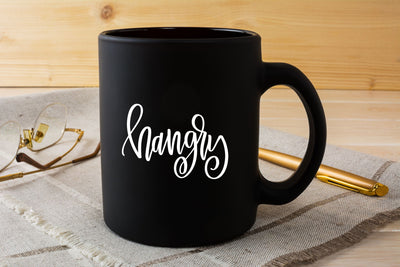
Hangry SVG | Funny SVG | Adult SVG | Funny SVG Quotes
So hangry! This funny SVG featuring the word Hangry is the perfect funny SVG quotes design for your crafty gifts. Craft a t-shirt or mug for your bestie or hubby and they will get a good laugh.